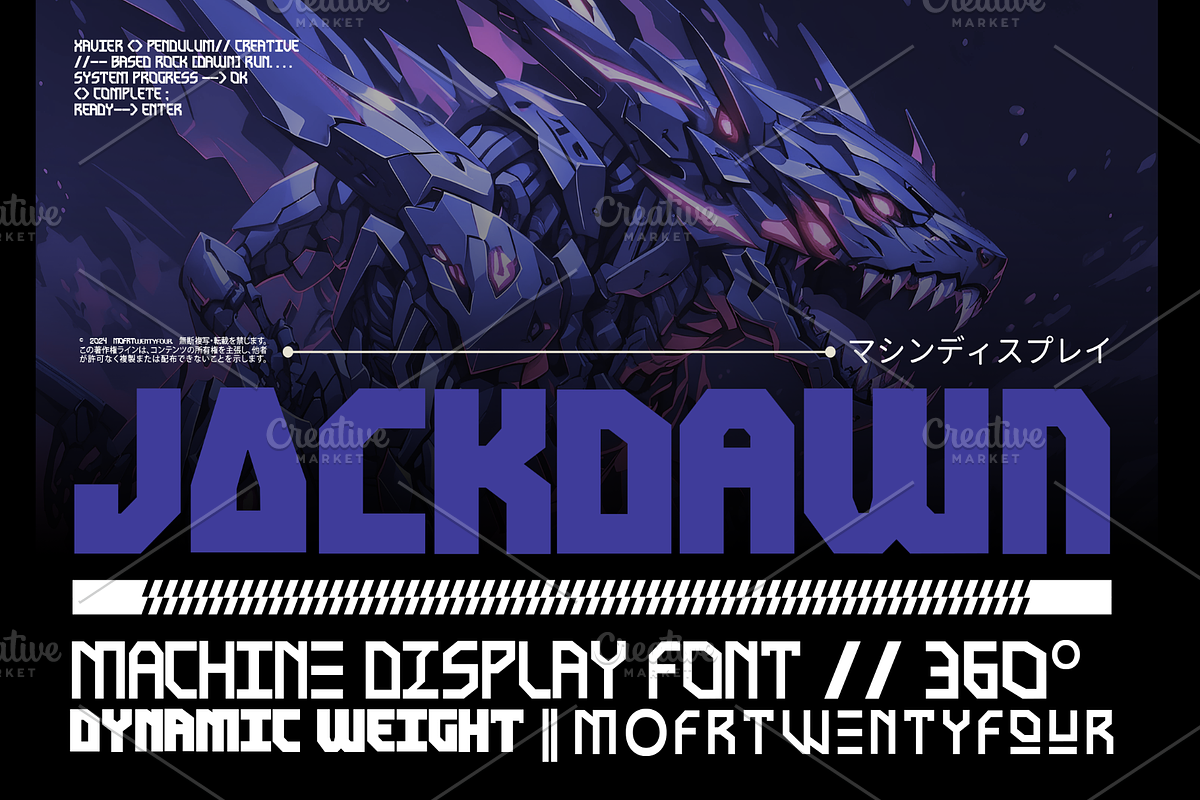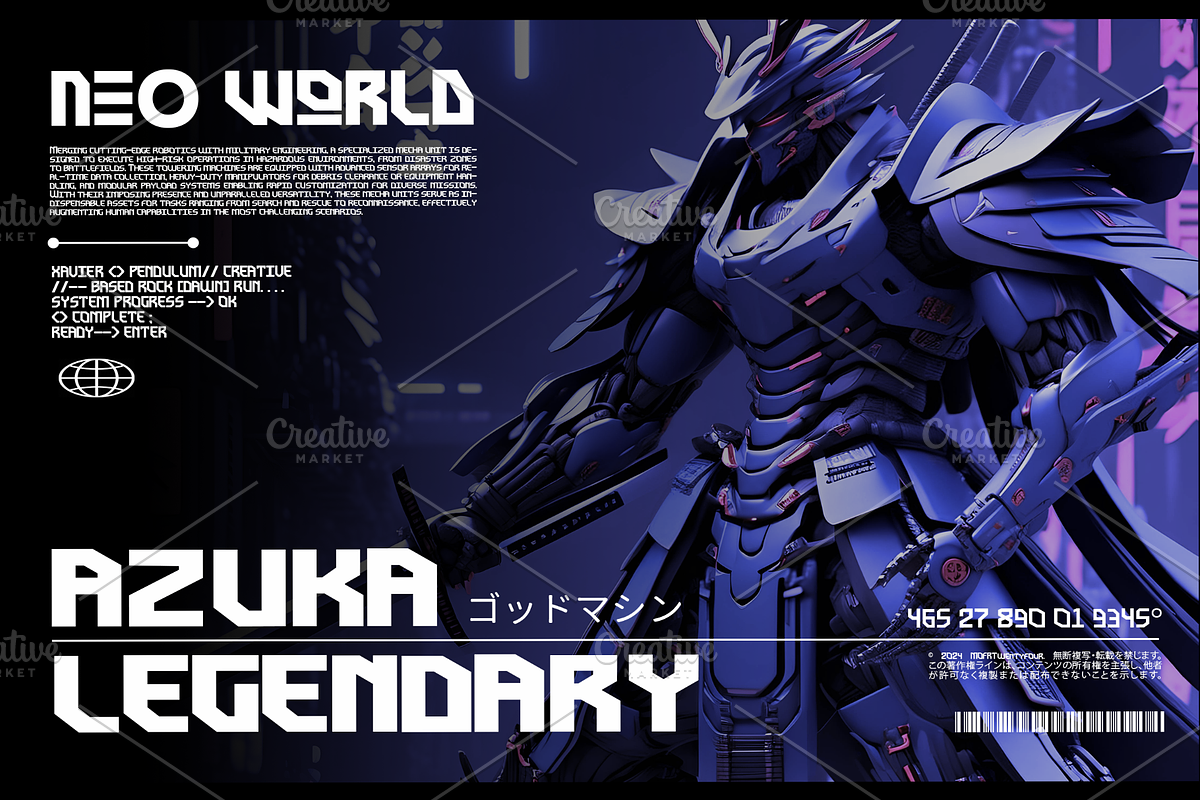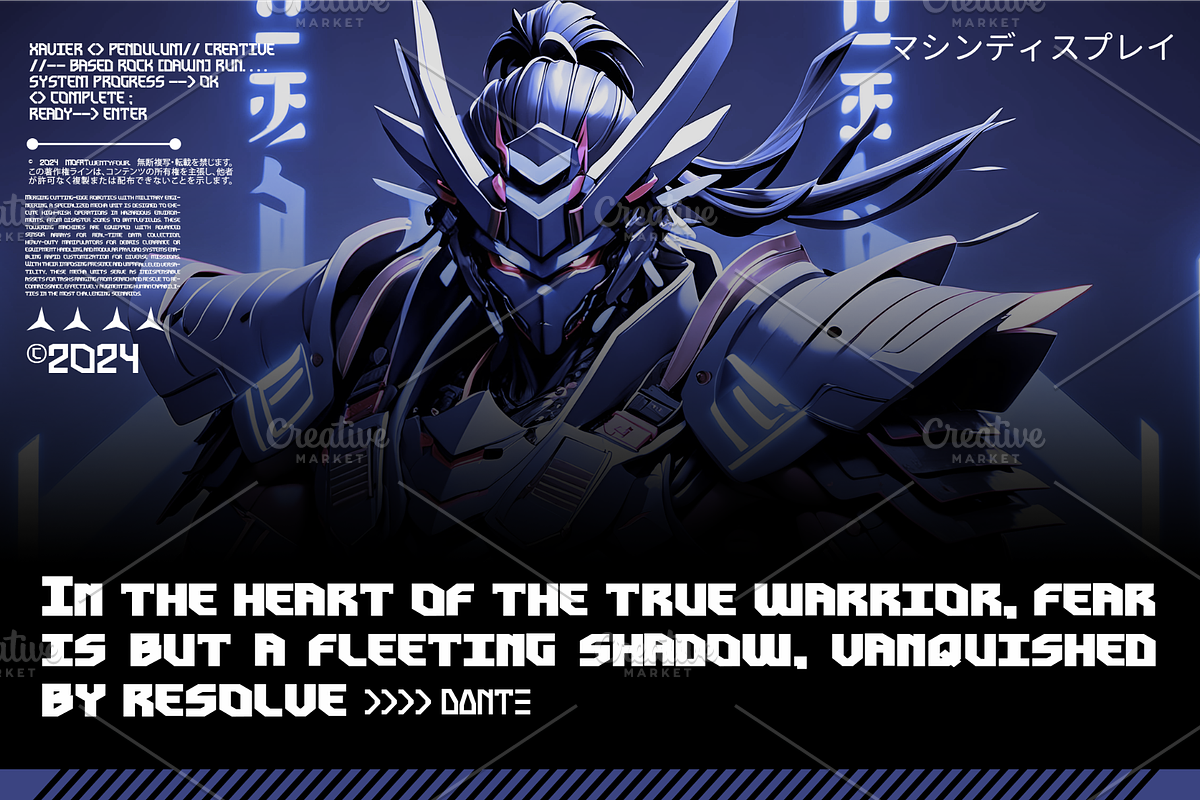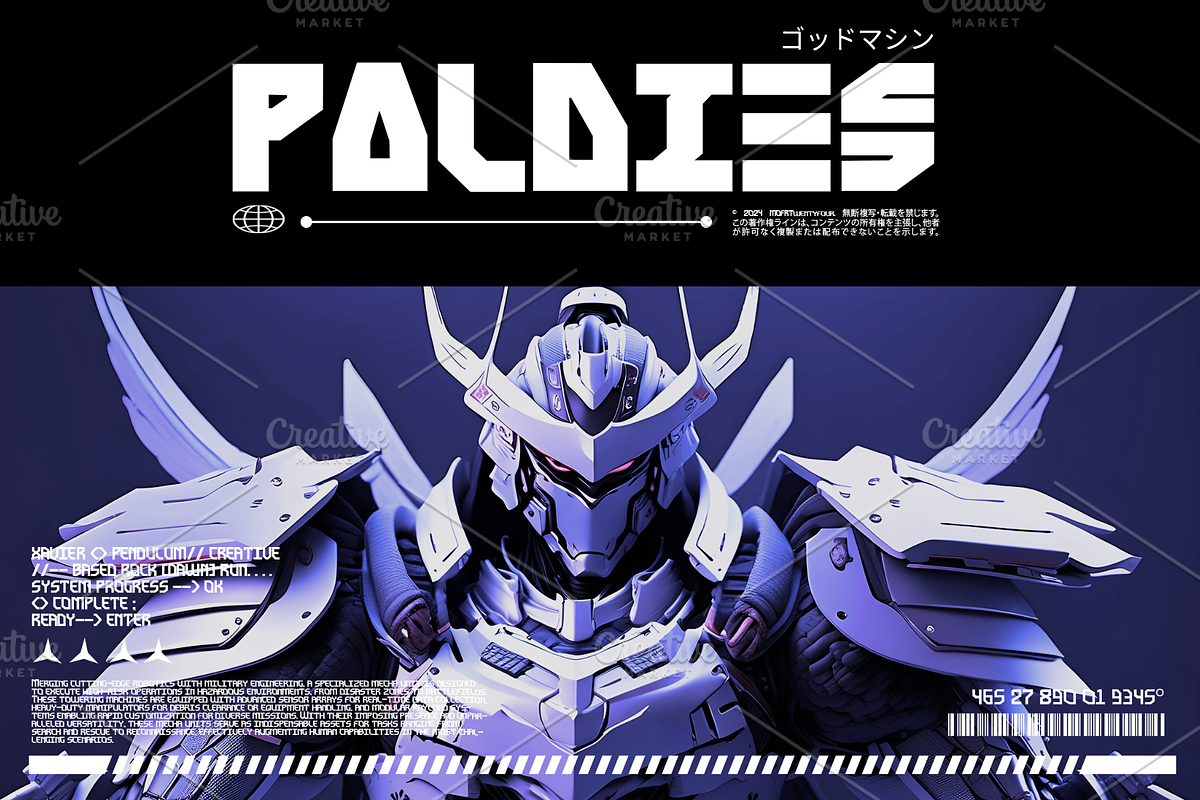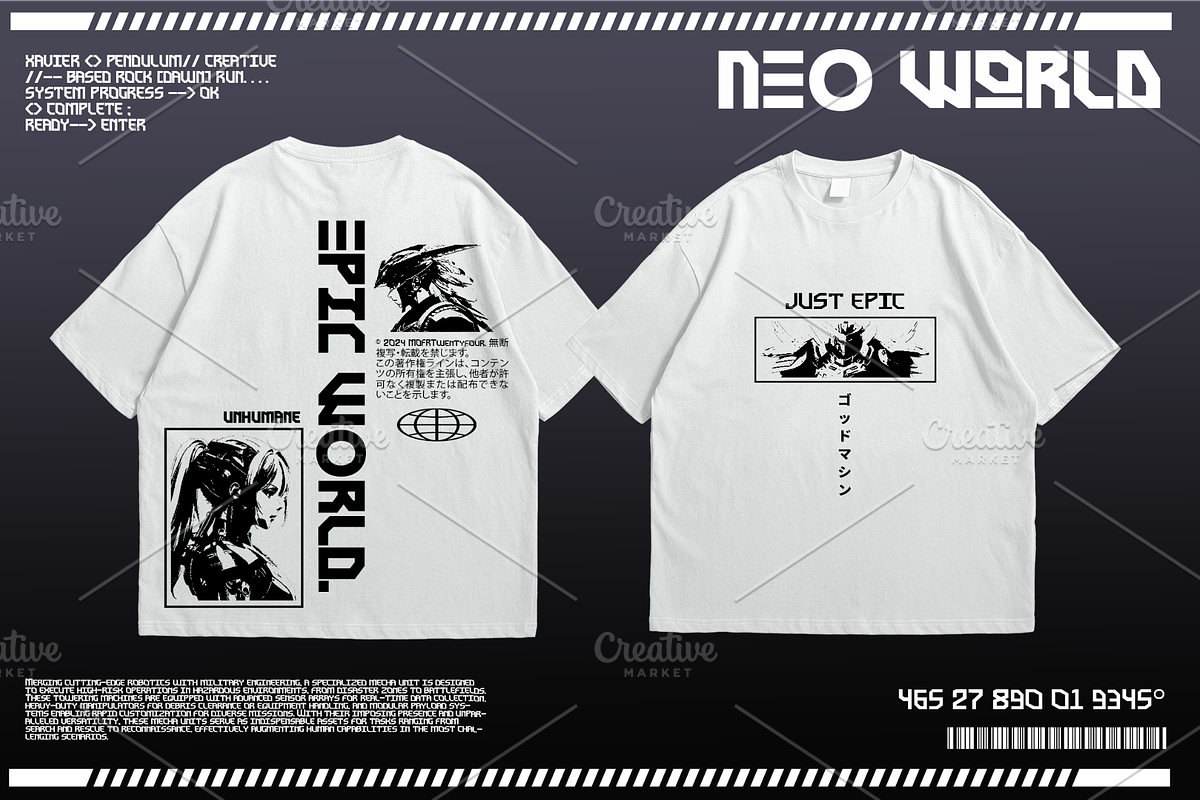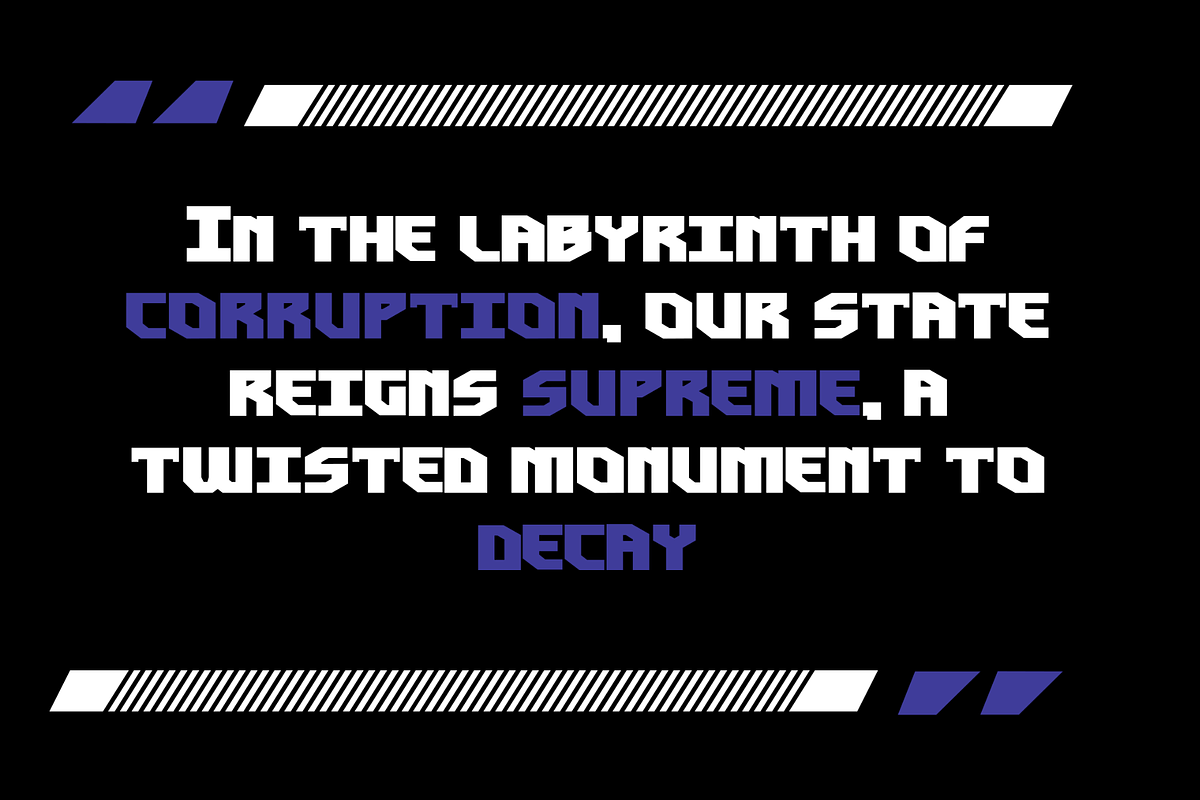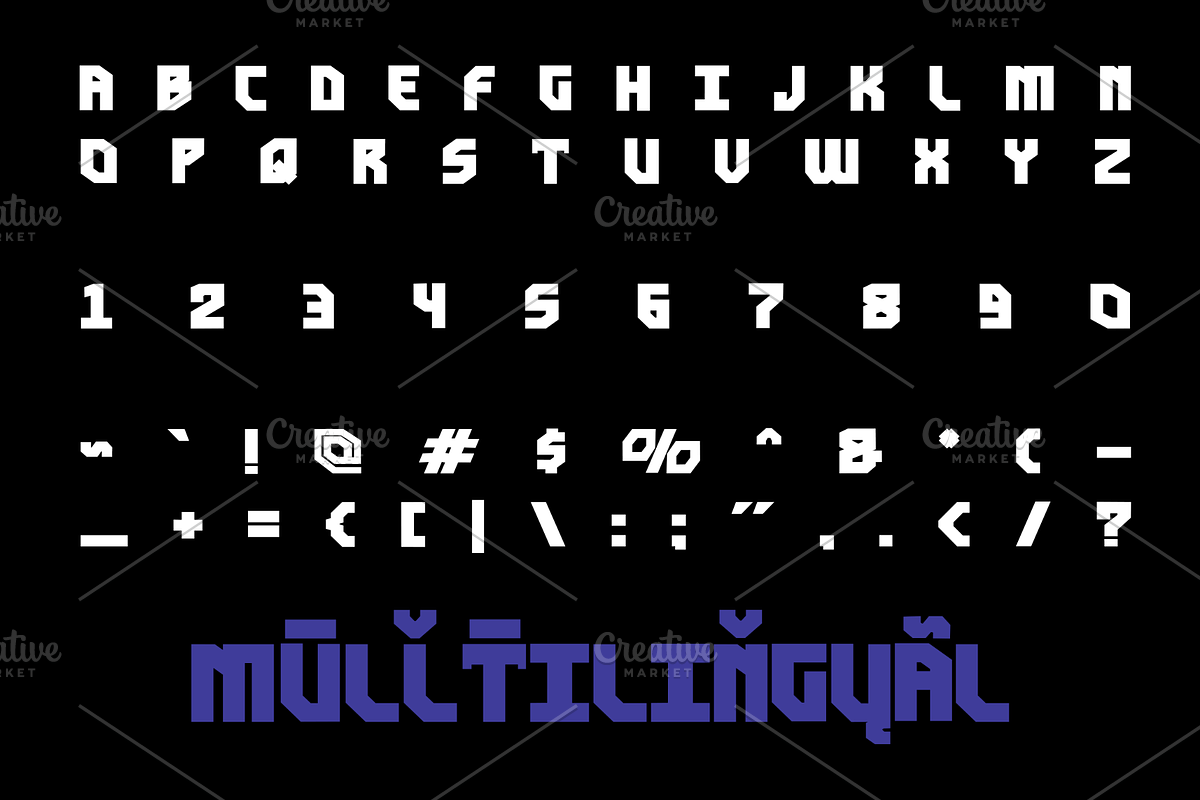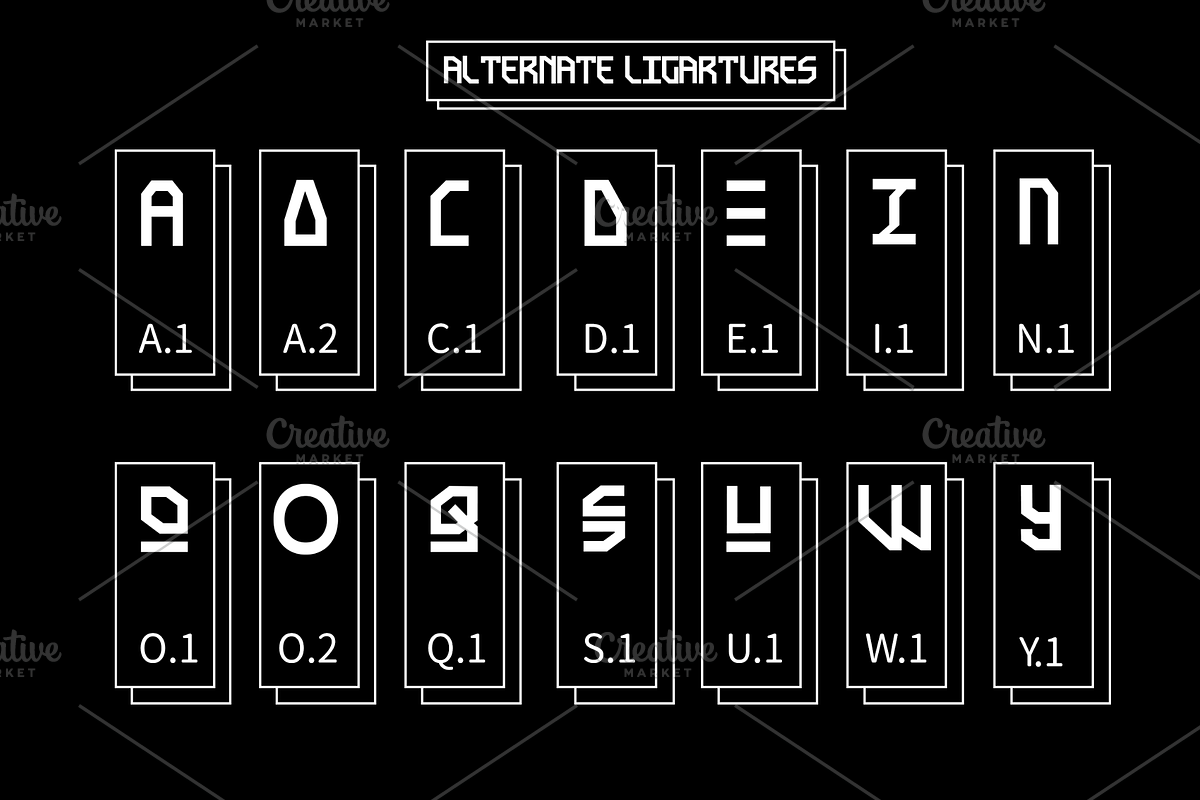
Jackdawn - Machine Display Font
Introducing Jackdawn, an impeccable Machine Display Font embodying the spirit of the future molded into a compact form. Infusing a distinct dynamic weight, it elevates each design project with an unmatched modern elegance. Its versatility is celebrated in seven typefaces—light, regular, medium, semi bold, bold, extra bold, and black— displayed bravely across each magnitude. From crafting a distinctive brand identity to powerful typography, from attention-grabbing posters to impactful quotes, and from stylish T-shirt designs to any creative aspiration you harbor, Jackdawn ensures every project radiates standout impact and finesse.